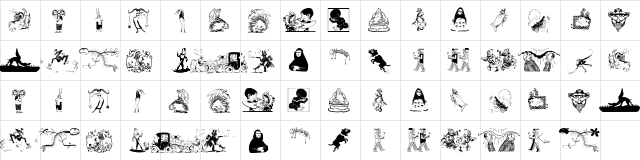
Peculiar Regular Font Preview
Peculiar Regular
Peculiar Regular Font Details
Design Context for Peculiar Typeface
Peculiar is a composed and adaptable typeface that performs quietly and consistently across a wide range of design contexts.